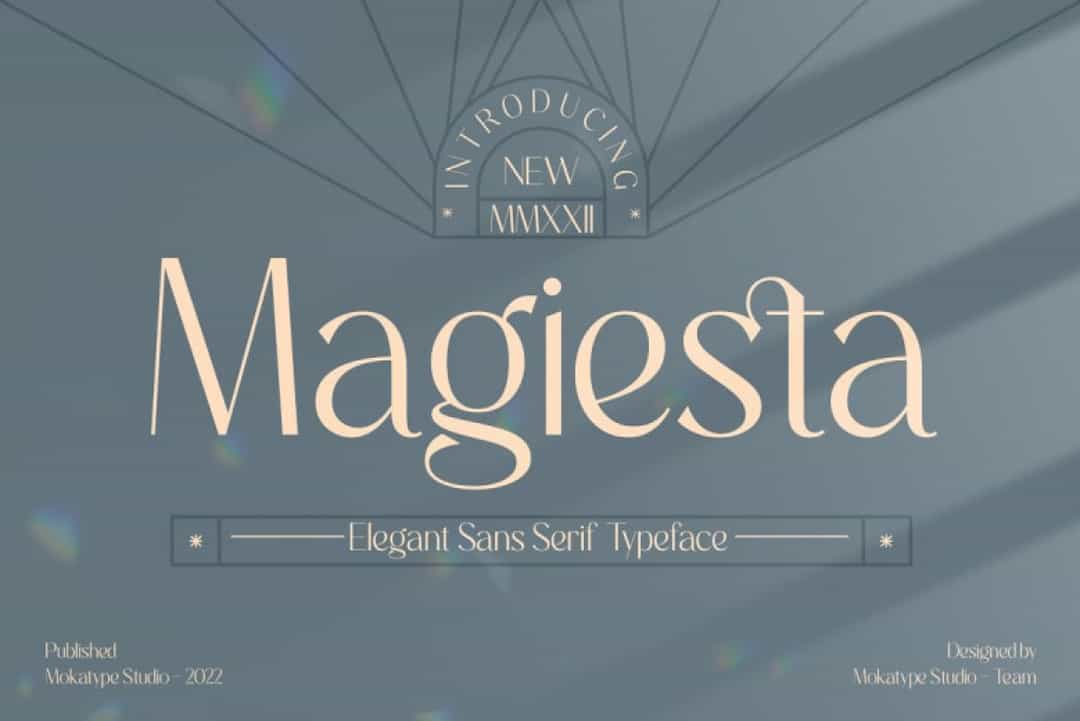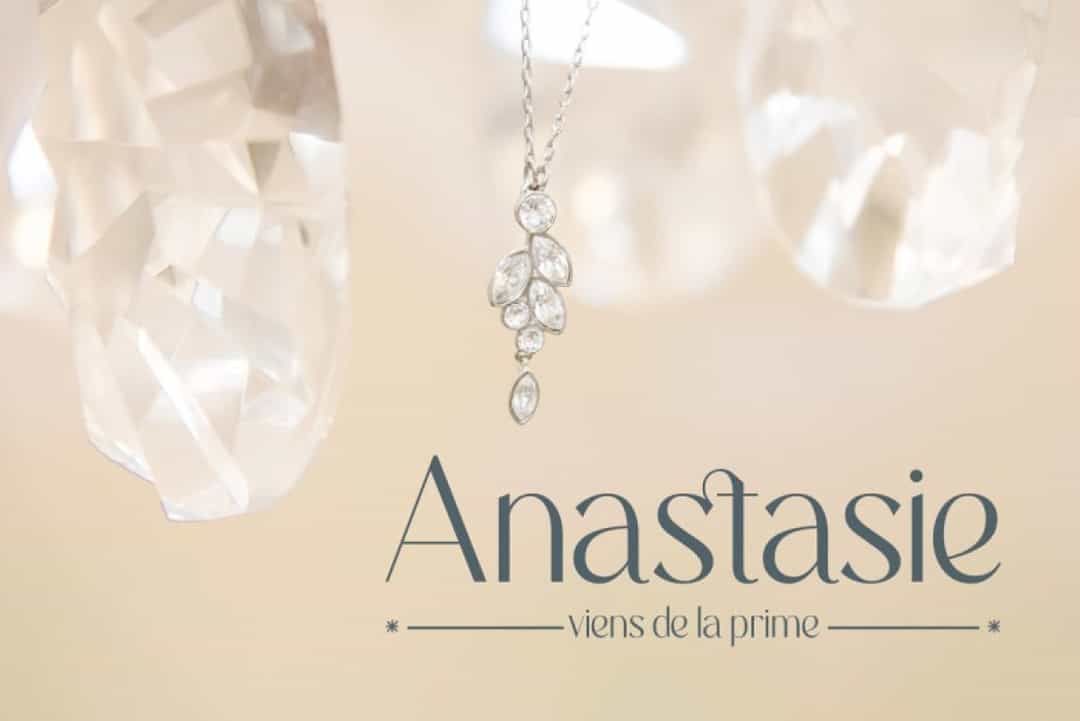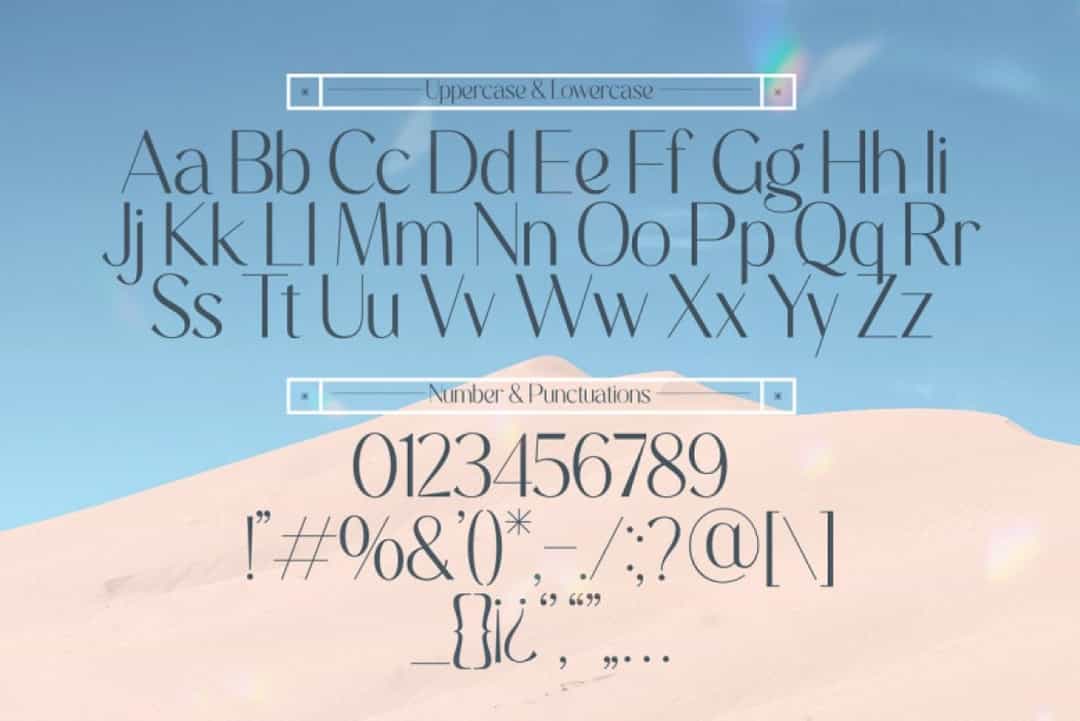
Welcome to Magiesta! Magiesta is an exquisite Display Sans Serif font designed by Magiesta that uses ligatures to connect letters seamlessly. Perfect for logos with wordmarks or monograms as well as pulling quotes, Magiesta features seven ligatures which can easily be turned off when necessary for standard writing.